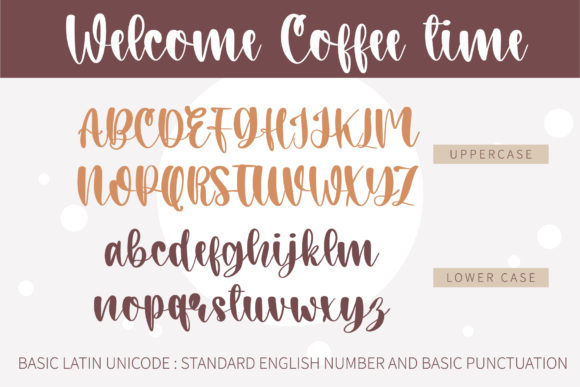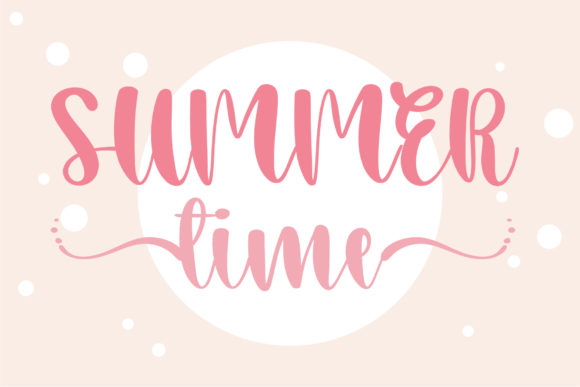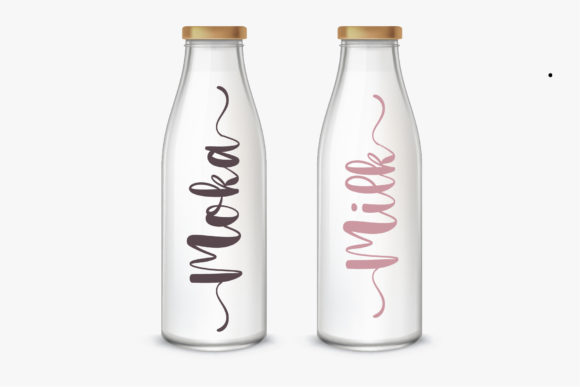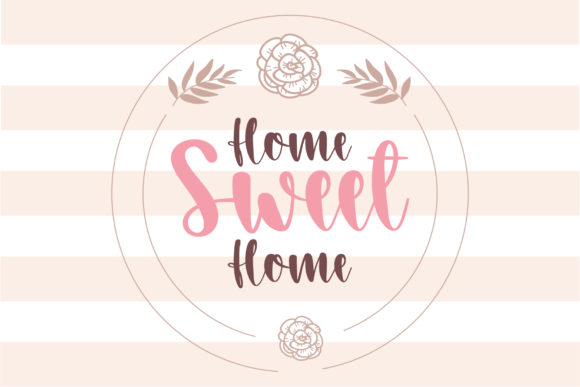
Welcome Coffee Time Font
Welcome Coffee Time is a beautiful and friendly handwritten font with a romantic theme. Use it for any design projects that require a charming appearance!